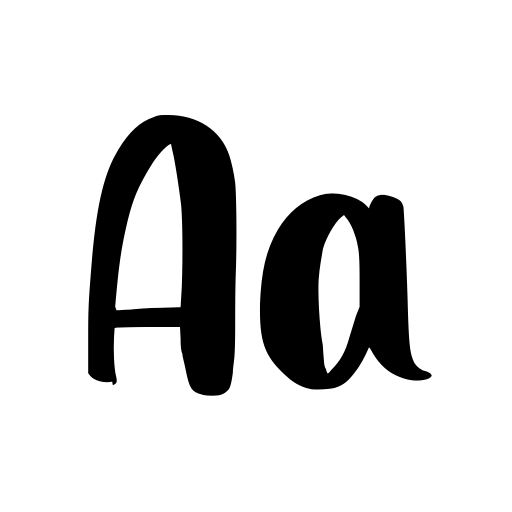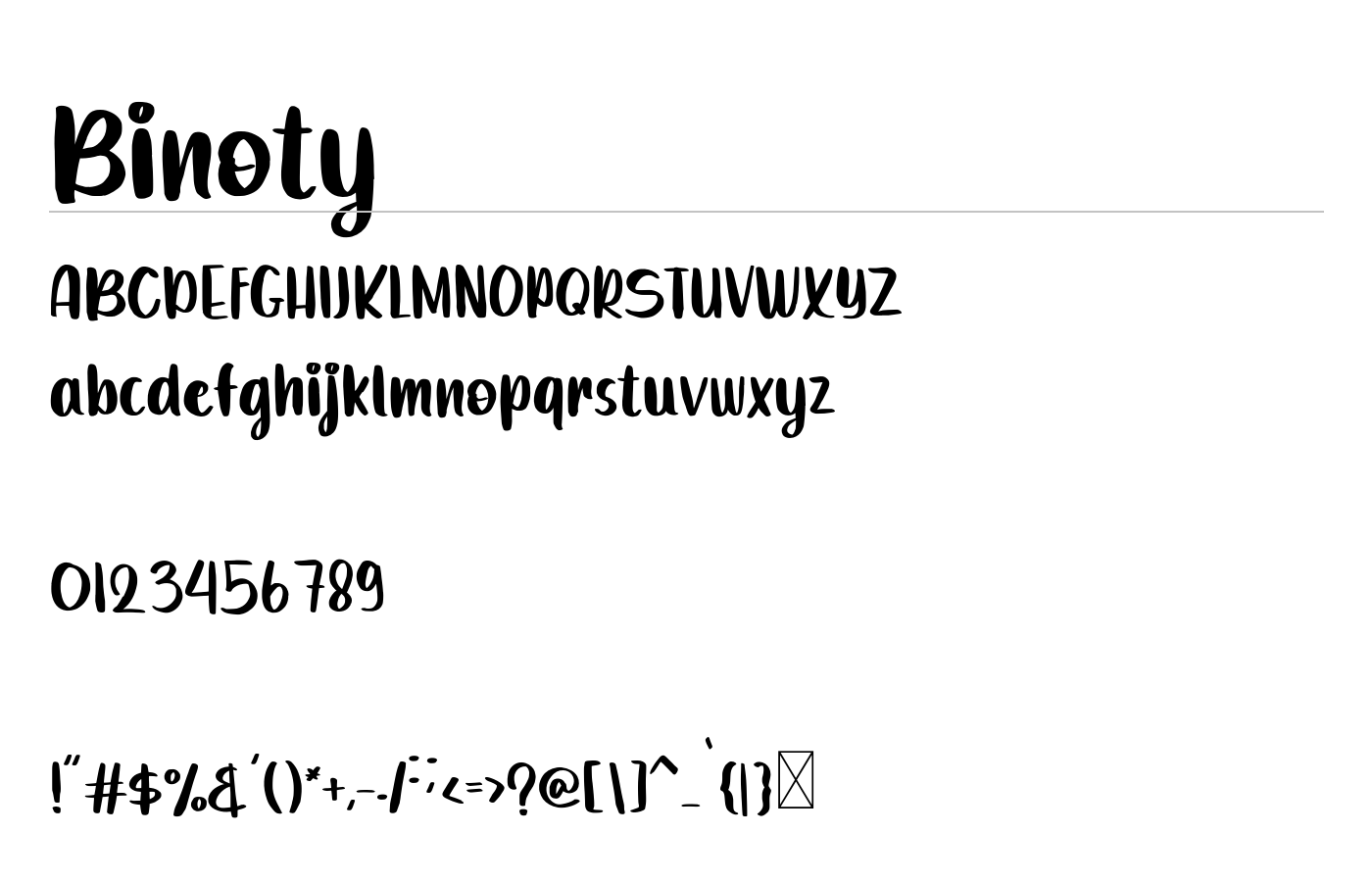
Binoty is a playful and casual handwritten sans serif font with a friendly, approachable feel. Its lively curves and consistent weight make it perfect for creative projects, branding, and editorial work that seeks a warm and informal touch. This font works well in headlines, logos, and packaging where a fun and inviting personality is desired.
Binoty Font